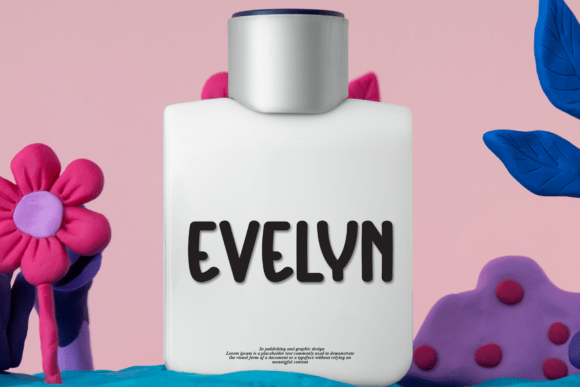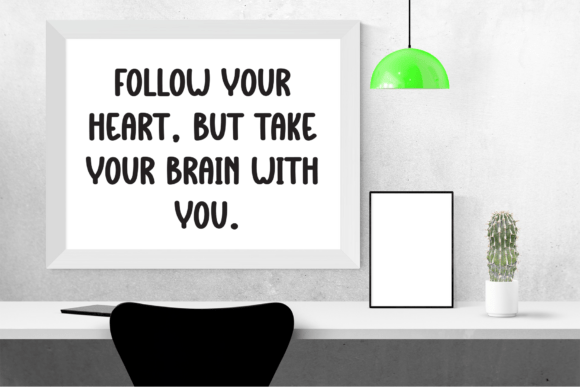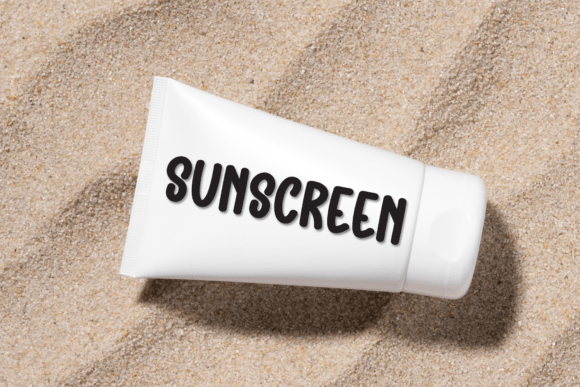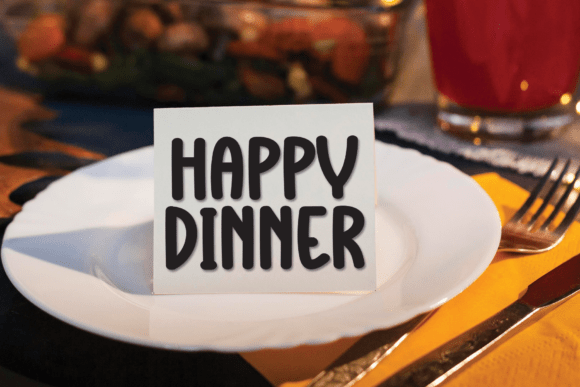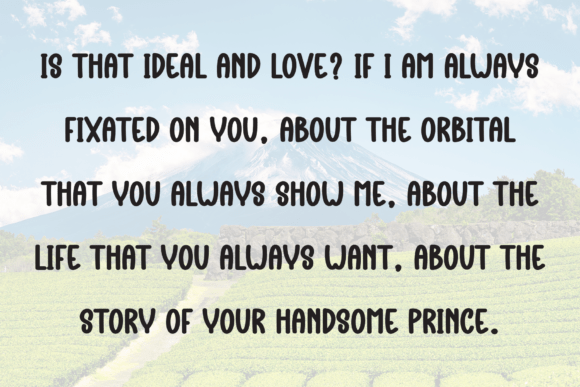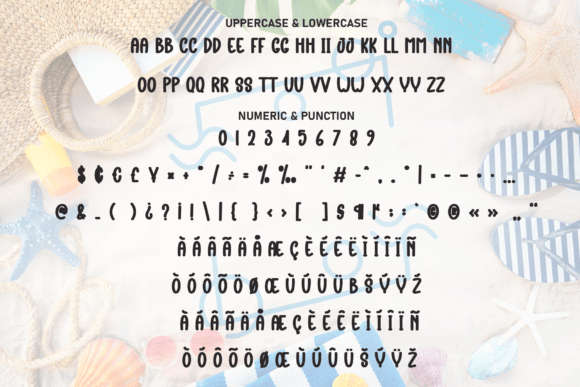
The Summer Vibes are Here: A Deep Dive into Hey Summer Font
I’ll never forget the summer I was tasked with creating a branding campaign for a beachside resort. I spent hours scouring font libraries, searching for the perfect blend of modern style and laid-back charm. That’s when I stumbled upon Hey Summer, a neat and casual display font that instantly captured the carefree essence of the project. In this article, I’ll share my experience with Hey Summer, its features, and how to make the most of it in your designs.
An Honest Review of Hey Summer Font
What I Love About Hey Summer ✨
- ✅ Clean lines and friendly letterforms that exude a sense of approachability
- ✅ Perfect balance of modern style and playfulness, making it ideal for a wide range of projects
- ✅ Highly legible, even at smaller sizes, which is a must for any font
- ✅ Extensive OpenType features, including stylistic alternates and glyphs, to give your designs a unique twist
- ⚠️ Limited use of uppercase letters in certain contexts, which can make it less suitable for all-caps designs
- ⚠️ Some users may find the font too casual or relaxed for formal projects
A Practical Guide to Using Hey Summer Font
The Story Behind Hey Summer Font
While the origins of Hey Summer are shrouded in mystery, it’s clear that the font was designed with the goal of capturing the carefree essence of summer. Imagine a designer sipping cold brew on a sunny porch, brainstorming ideas for a font that embodies the perfect blend of style and relaxation. That’s Hey Summer in a nutshell – a font that’s equal parts modern, playful, and laid-back.
Q: What type of projects is Hey Summer best suited for?
A: Hey Summer is perfect for designs that require a modern, laid-back feel, such as headlines, posters, packaging, and branding.
Q: Does Hey Summer support OpenType features?
A: Yes, Hey Summer features an extensive range of OpenType features, including stylistic alternates and glyphs, to give your designs a unique twist.